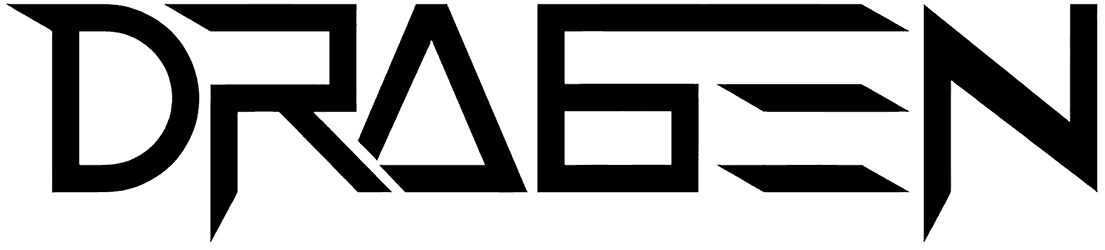
Dragen Font
The Dragen is an energetic font that catches your eye at first glance. It can be an excellent choice if you are looking for a well-designed font. The Dragen font’s letters have sharp edges and geometric shapes that feel serious.
You can use this gaming font for various cases such as posters, video games, and action movies; however, it does not support lowercase letters, numbers, and symbols. So download this cool style font and impact your audience.